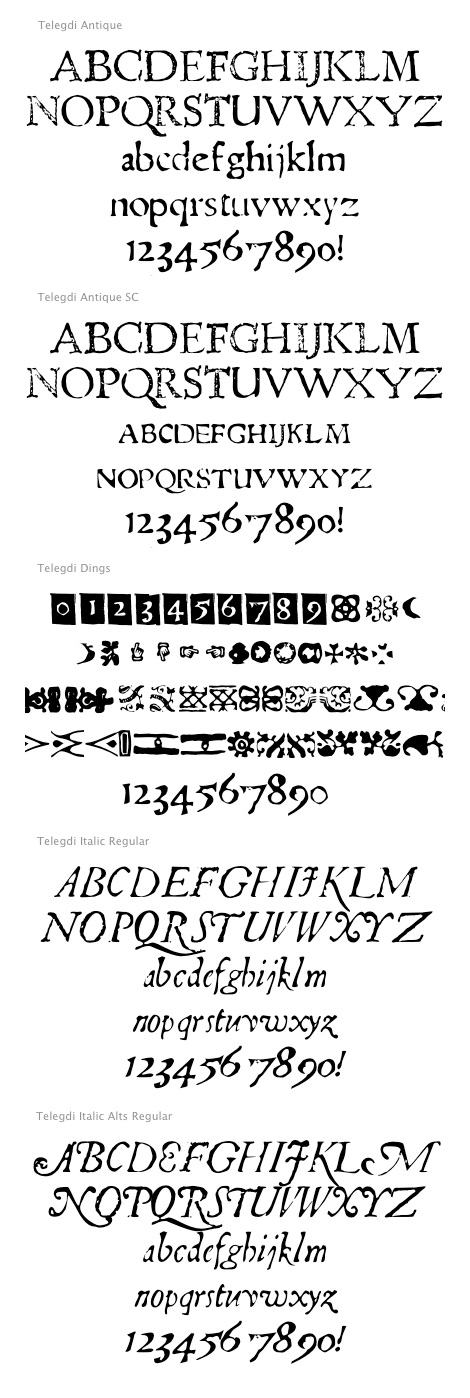
Telegdi Set (5 Typefaces) (International House of Fonts)
Telegdi is an authentic highly distressed font. The letter spacing and letter weight is intentionally uneven to re-create the effect of early printing which used hand cast and hand set type with irregular paper and coarse ink consistency.FONTHAUS END USER LICENSE AGREEMENT